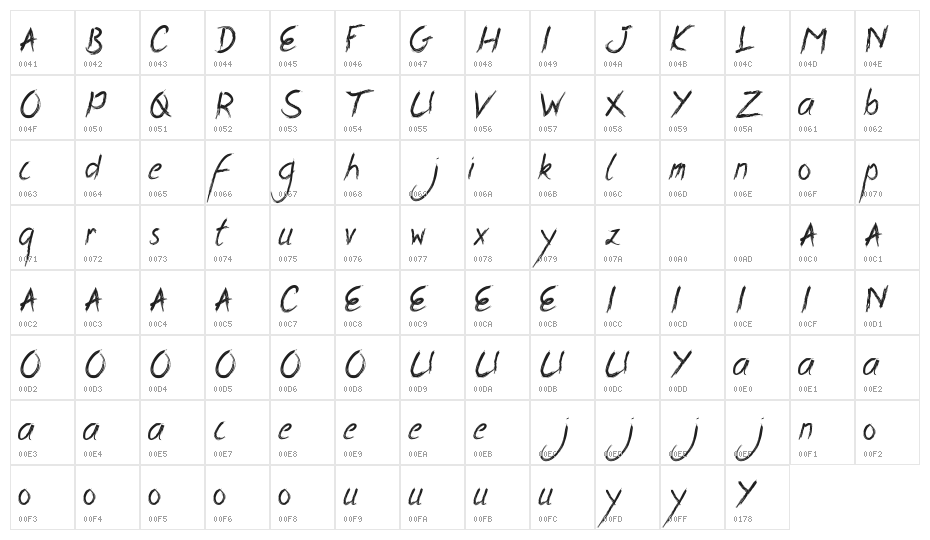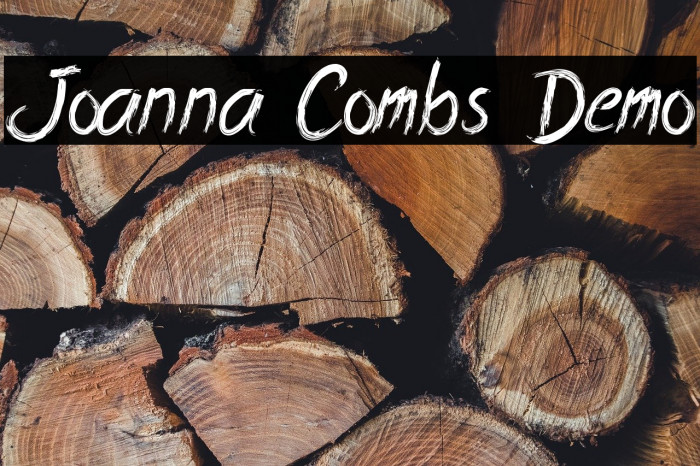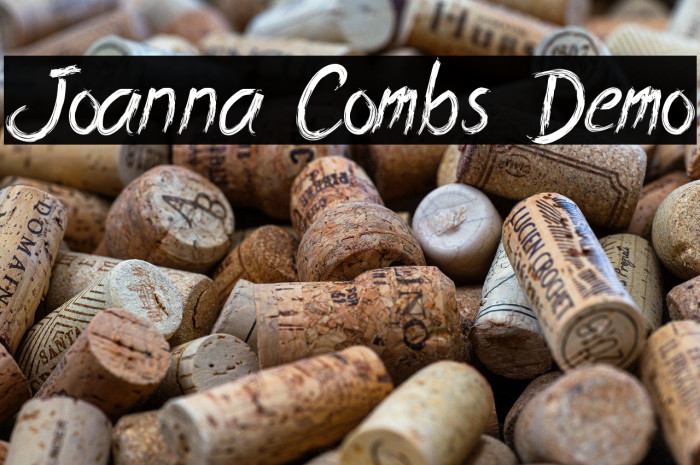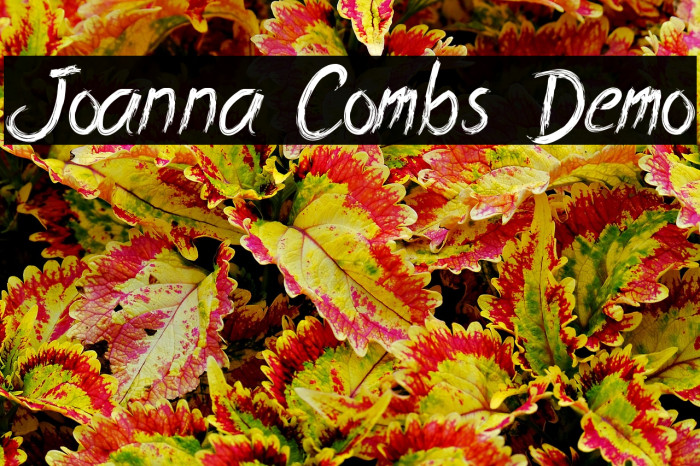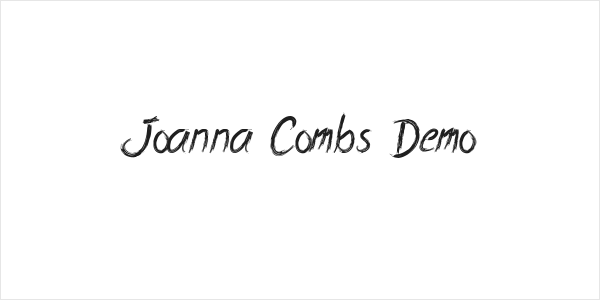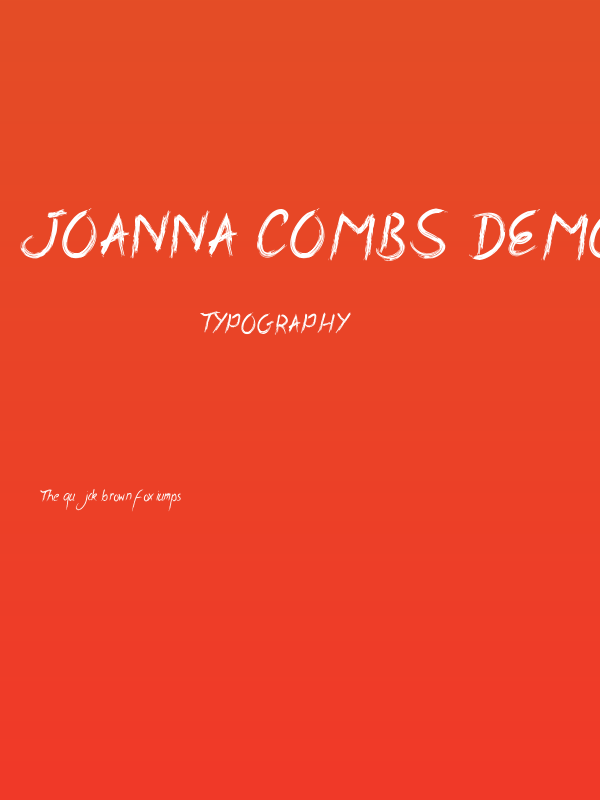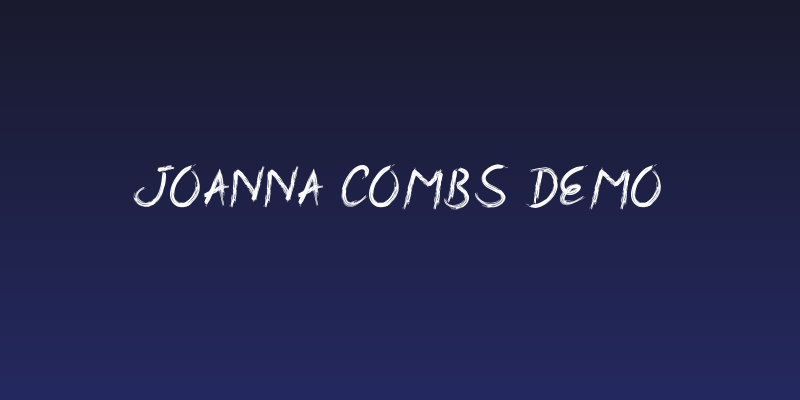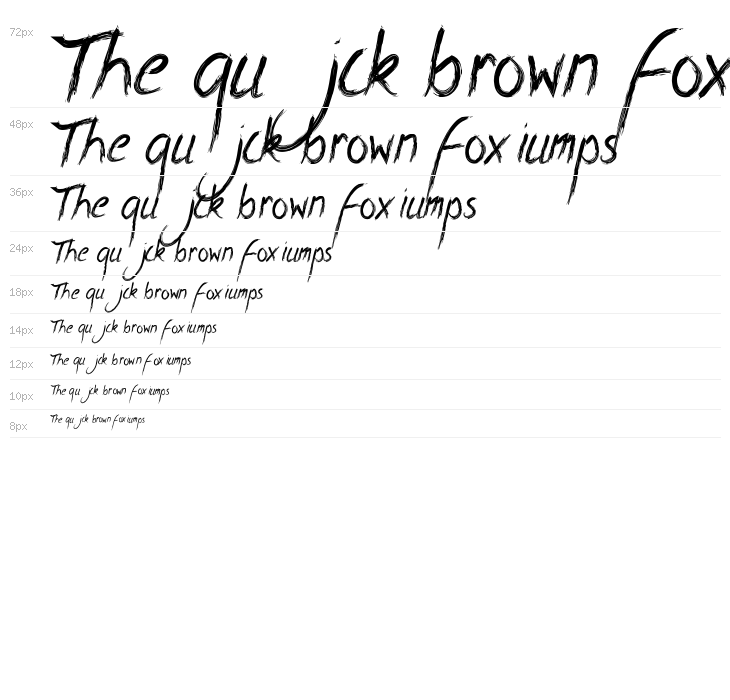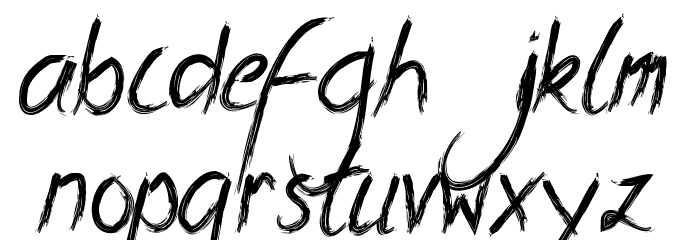
Joanna Combs Demo Font
Joanna Combs Demo Description
This font features a bold and expressive brushstroke style, characterized by its dynamic and energetic appearance. The letters have a hand-drawn quality, with irregular edges and varying stroke thicknesses that create a sense of movement and spontaneity. The uppercase and lowercase letters maintain a consistent style, with some letters extending slightly beyond the baseline, adding to the font's lively character. The absence of numbers and special characters suggests a focus on artistic expression rather than functionality.
| Proposed Projects | Ideal for creative projects such as posters, album covers, and artistic branding where a bold, expressive style is desired. |